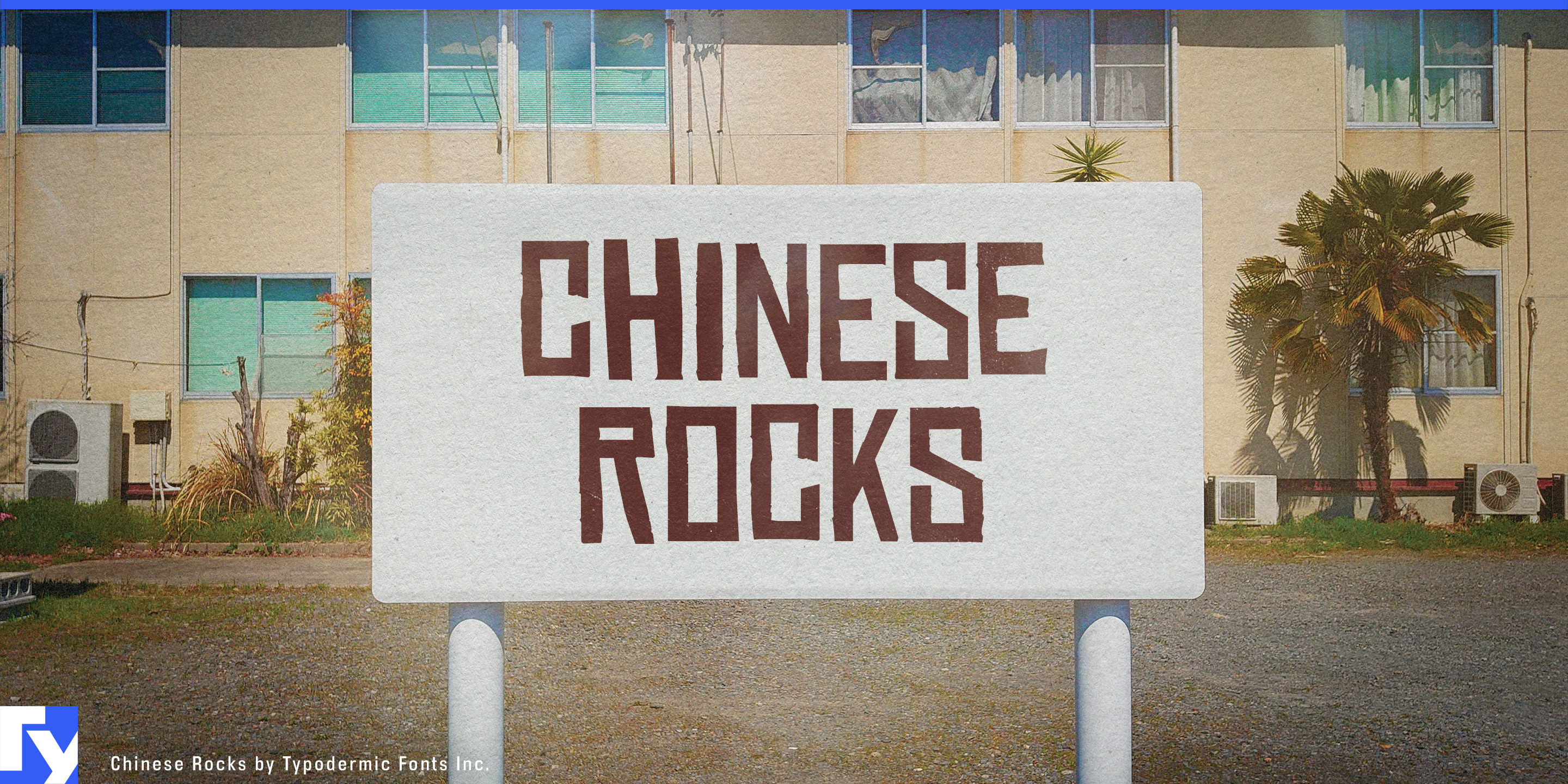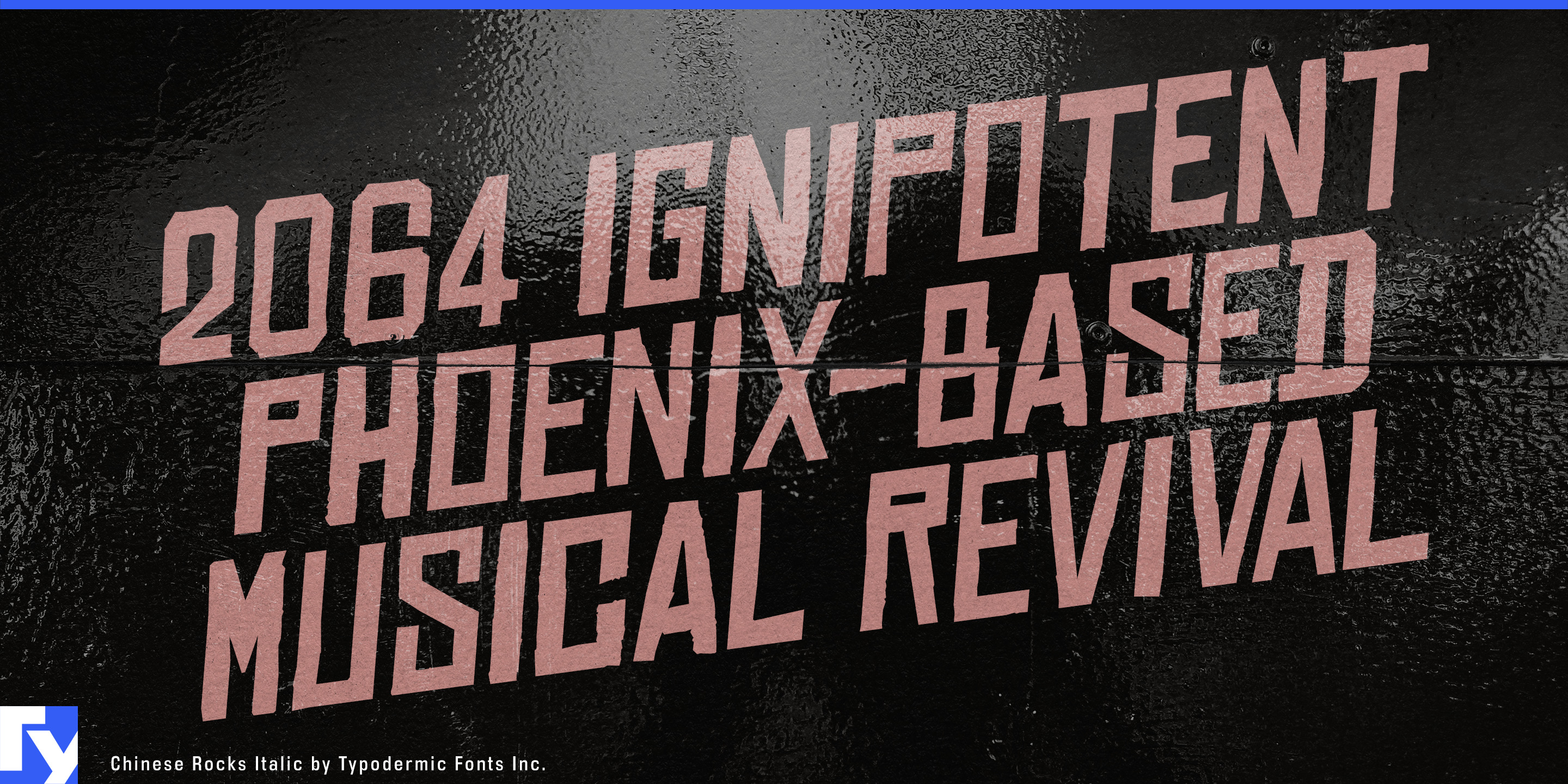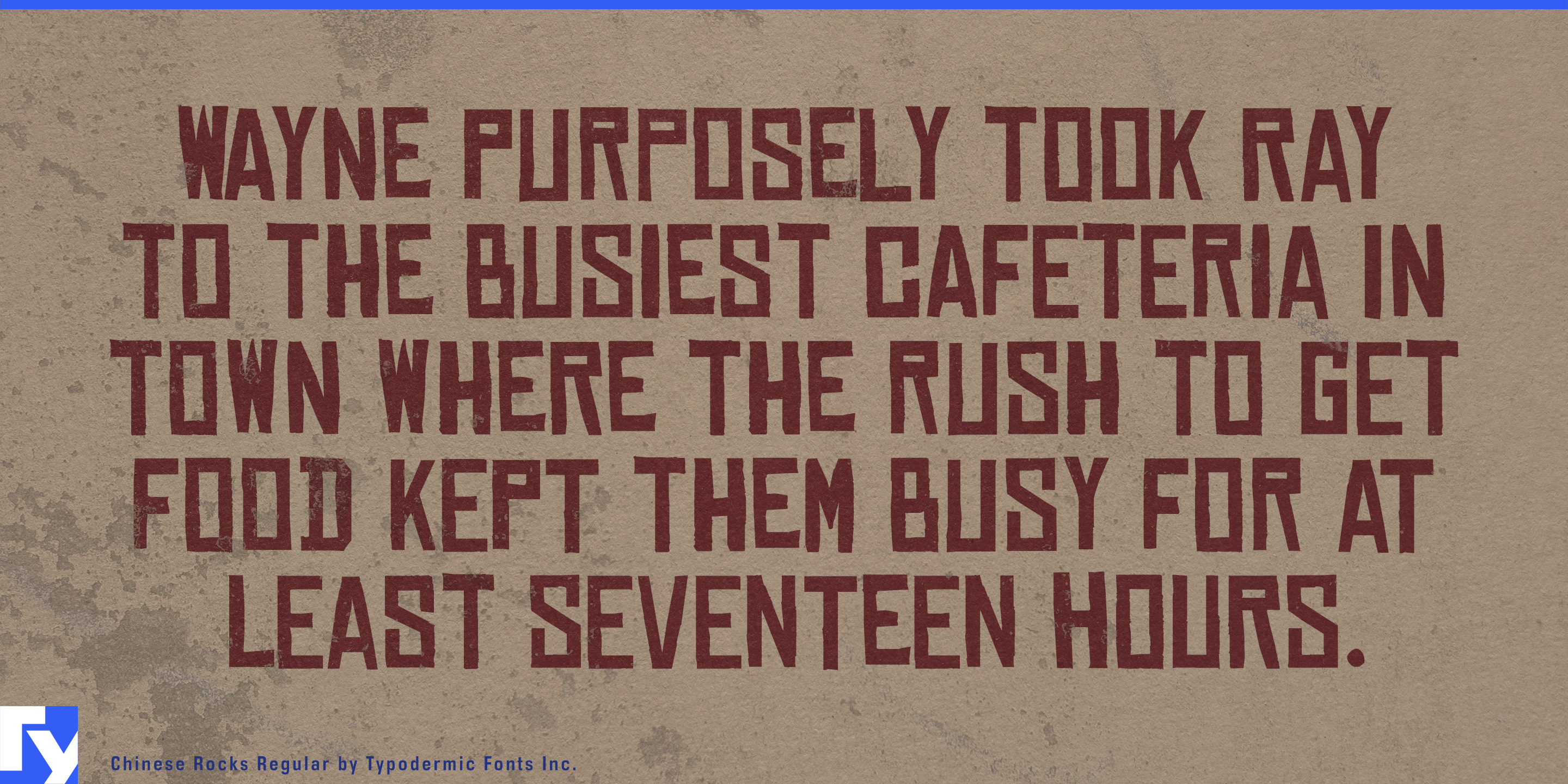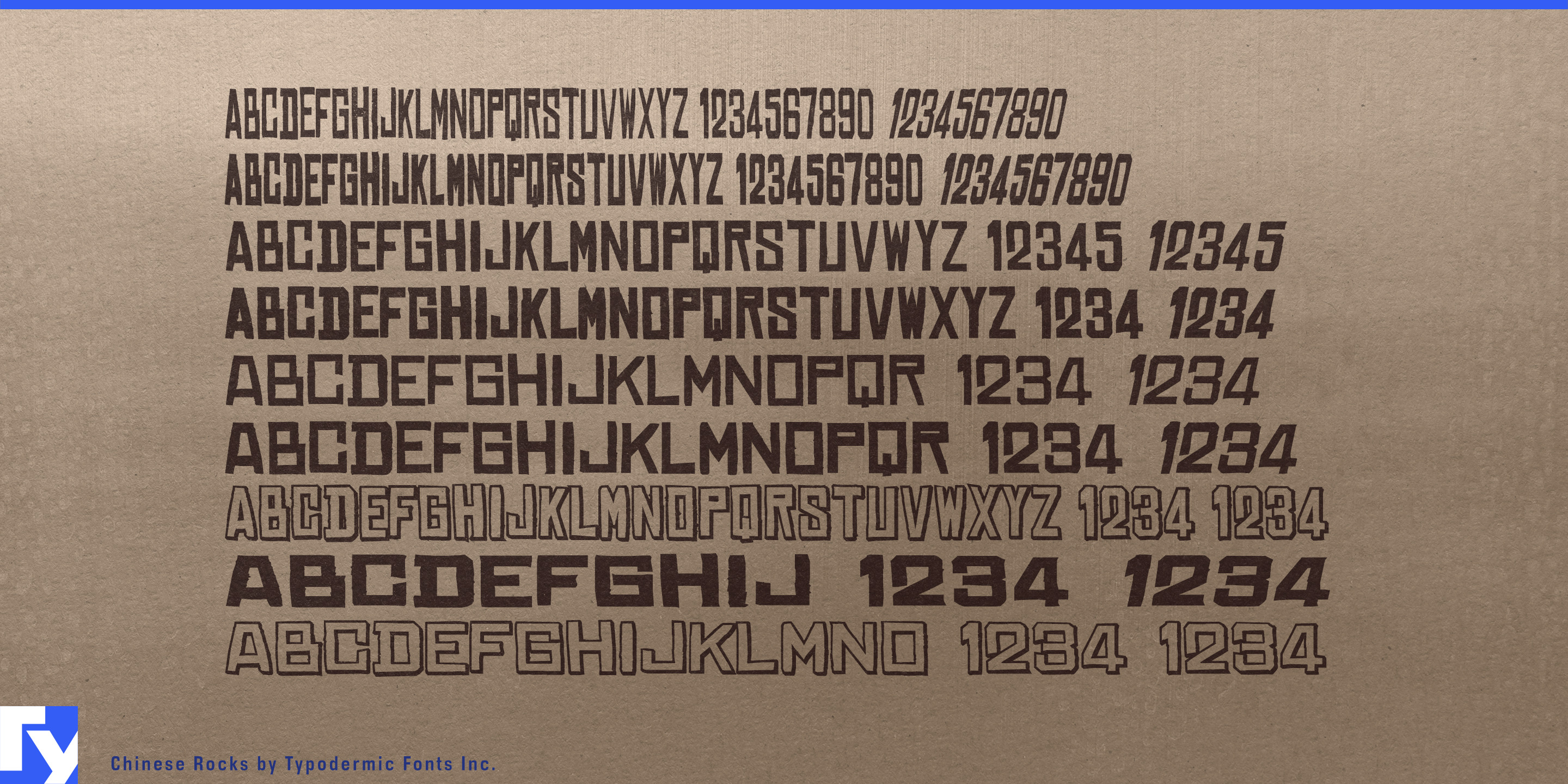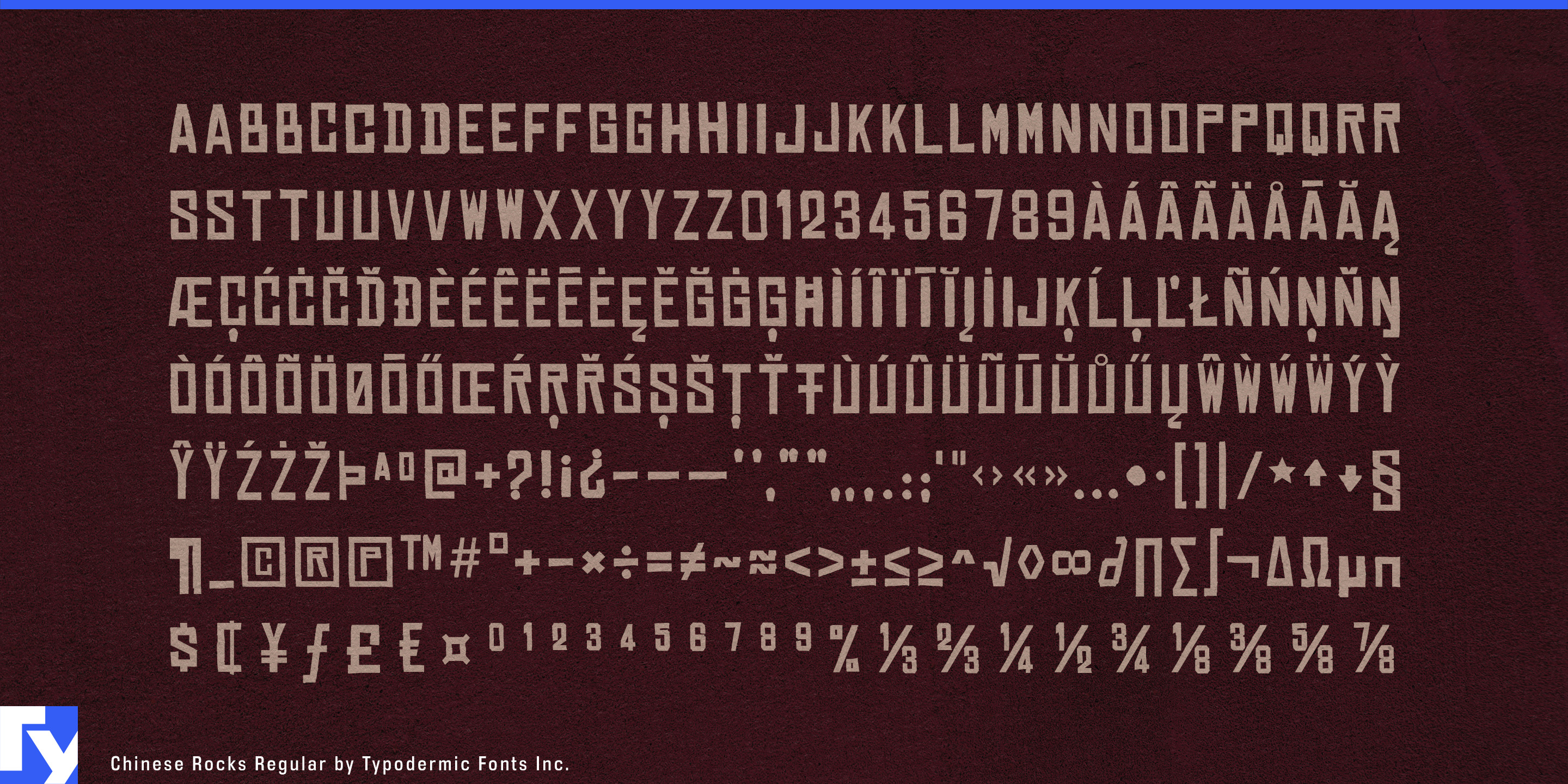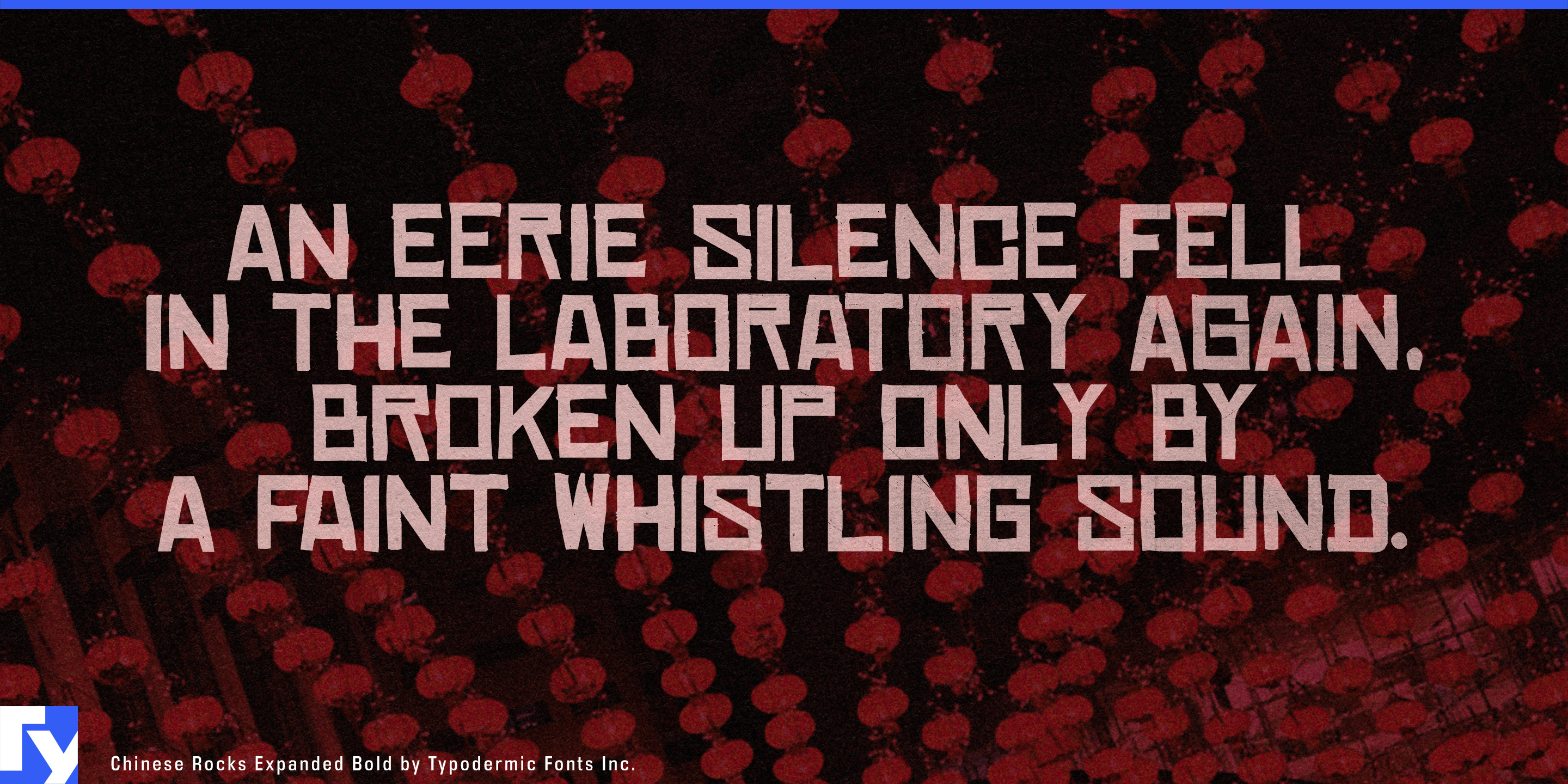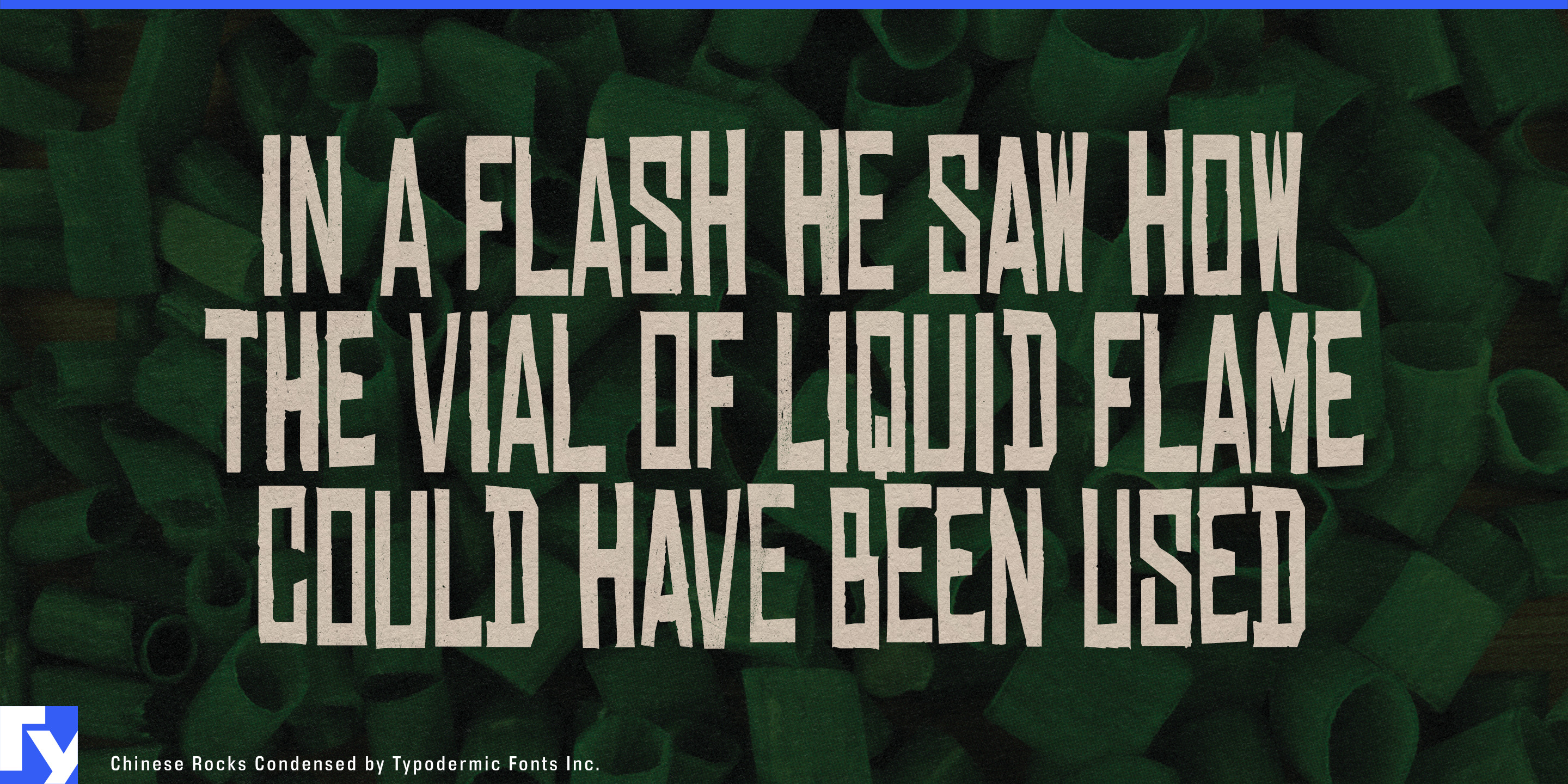
Chinese Rocks
A distressed font is easy to use once. The harder problem begins when that rough headline has to become an identity. A game may need the same voice on a title card, faction name, settlement sign, freight crate and expansion logo. A sports campaign has to move from jersey lettering to arena graphics, merchandise and social media. Stretch one distressed font to fit every space and its character falls apart; switch between unrelated rough faces and the identity fragments.
Chinese Rocks was built to go further. Its hand-cut, rubber-stamp character remains recognizable across condensed and expanded proportions, heavier styles, italics and shaded treatments. The family can change width, mass and emphasis while keeping the same crude freight-derived skeleton.
The design began with lettering found on twentieth-century Chinese export crates. Chinese Rocks preserves that irregular, knife-cut quality while turning it into a broad display system. The name refers to that freight source; the typeface is not an imitation of Chinese writing or decorative East Asian lettering.
Historical games and fictional worlds make especially good use of the range. Frontier settlements, mining camps, railway towns, ports and industrial outposts need far more than one title treatment. Chinese Rocks can move through faction names, shop signs, freight markings, chapter cards, wanted notices and vehicle lettering while preserving a common visual language. Condensed styles help long names fit narrow assets; Expanded styles fill storefronts and wide title cards; heavier variants give franchise and campaign names more mass.
That freight origin also keeps Chinese Rocks from collapsing into generic cowboy typography. Railway depots, warehouses, expedition bases, mining settlements and port districts all fit naturally within its visual world.
Contemporary sports provide a very different setting. Team identities have to survive chest lettering, merchandise marks, arena ribbons, scoreboard graphics and social campaigns. Chinese Rocks can supply a rough secondary voice for rivalry games, special editions, throwback programs and merchandise capsules while its width variations solve practical space problems.
Expedition luggage, overland storage systems, protective equipment cases and heritage travel products can use Chinese Rocks for product-family names and campaign graphics that relate naturally to crates and handling marks. Film and streaming production design can use the family similarly for fictional freight companies, railway operations, warehouses and mining businesses.
Chinese Rocks is useful because its roughness does not have to remain a one-off effect. It can narrow, widen, grow heavier, lean forward or take on a shaded treatment while still belonging to the same identity.